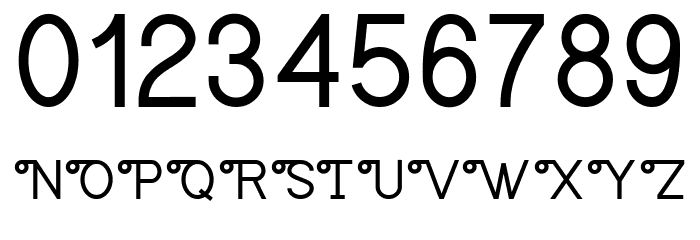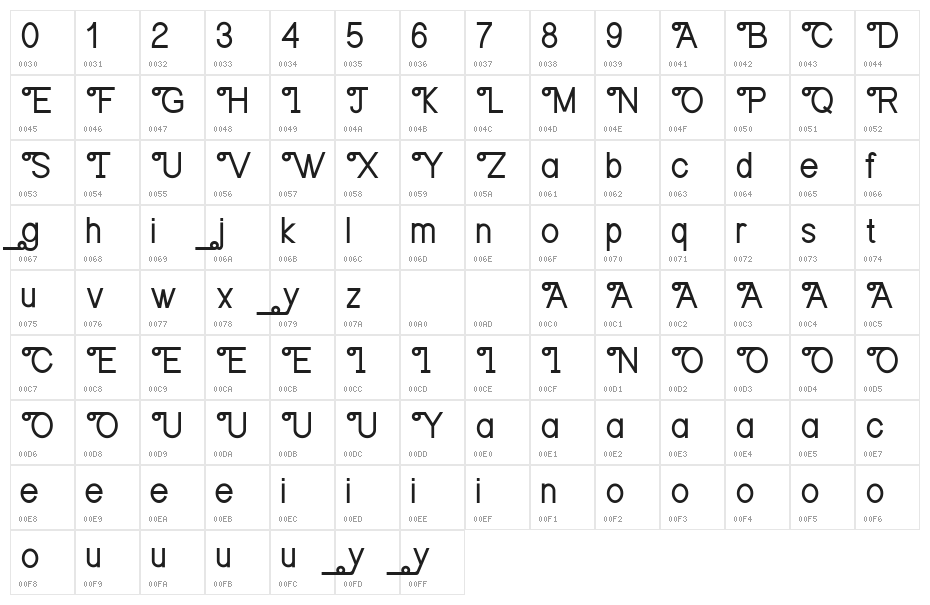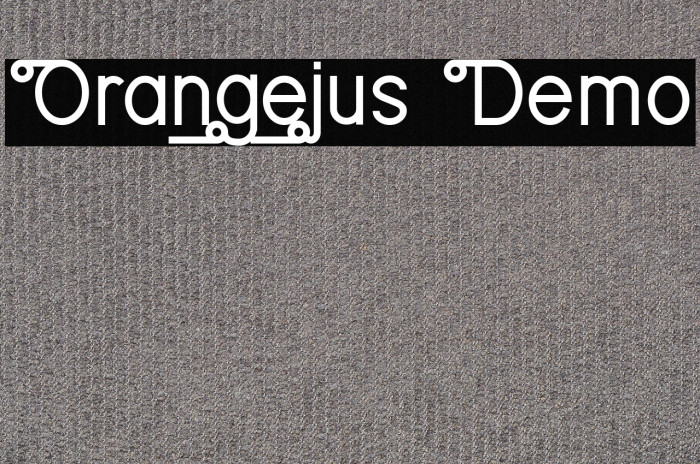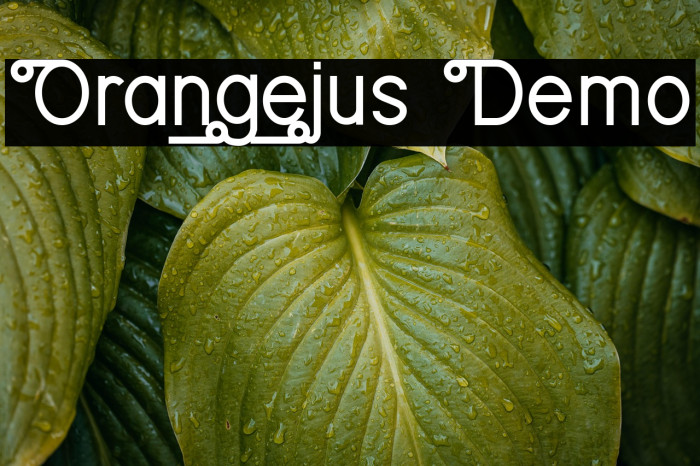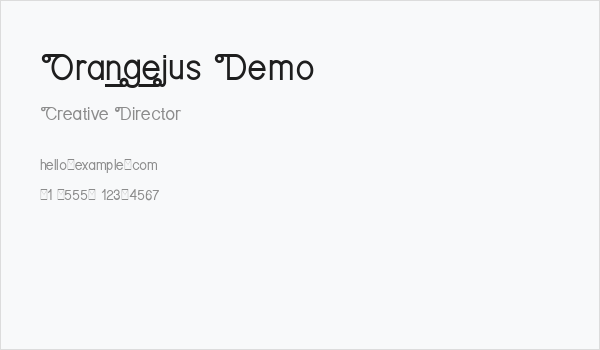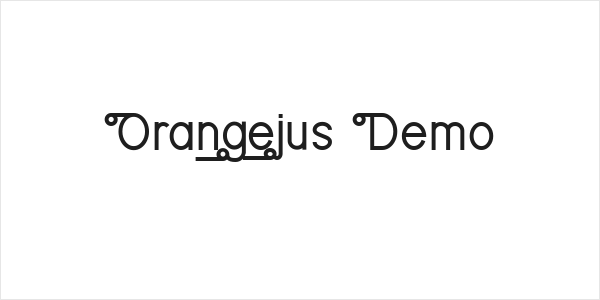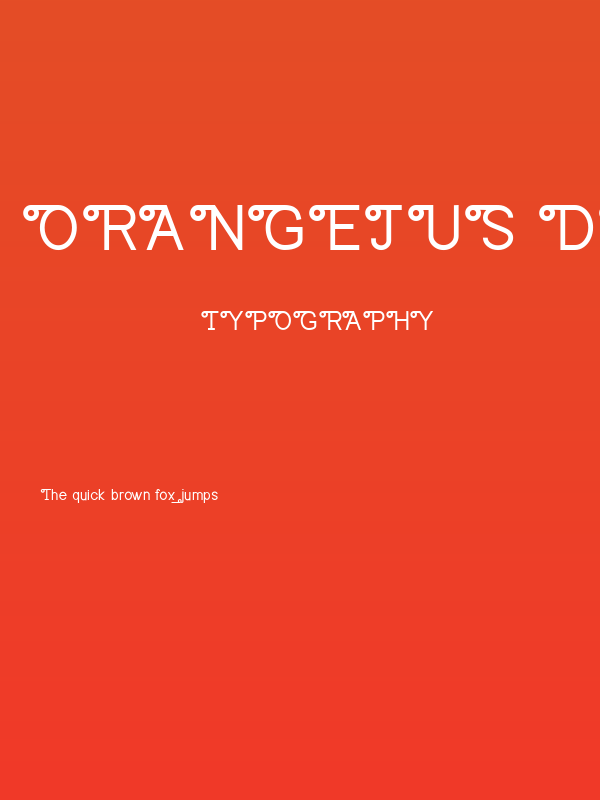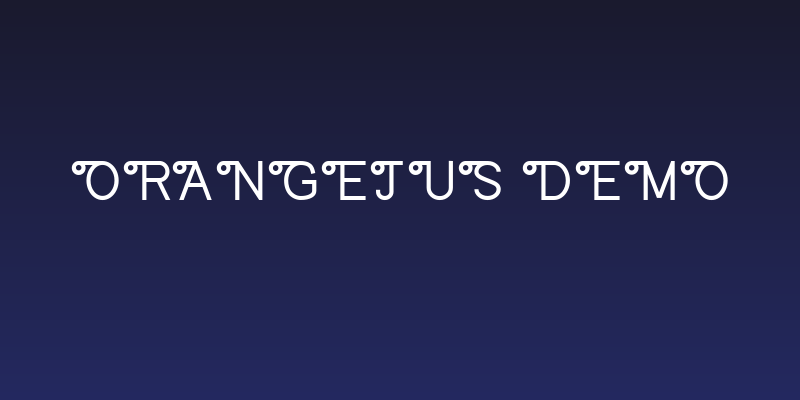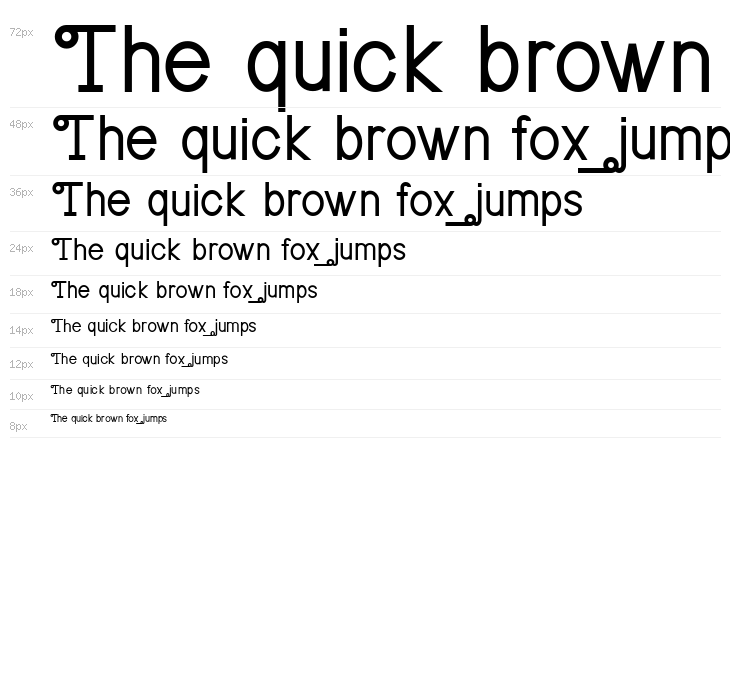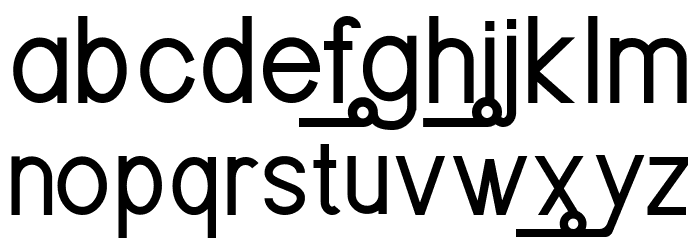
Orangejus Demo Font
Orangejus Demo Description
This font features a unique and playful design with circular embellishments at the ends of certain strokes, giving it a whimsical and decorative appearance. The uppercase letters are characterized by these distinct circular terminals, which add a sense of fun and creativity. The lowercase letters maintain a more traditional sans-serif structure, providing a balanced contrast between the two cases. The numerals are clean and straightforward, ensuring readability while maintaining the font's overall playful aesthetic. This font's distinctive style makes it suitable for projects that require a touch of personality and flair.